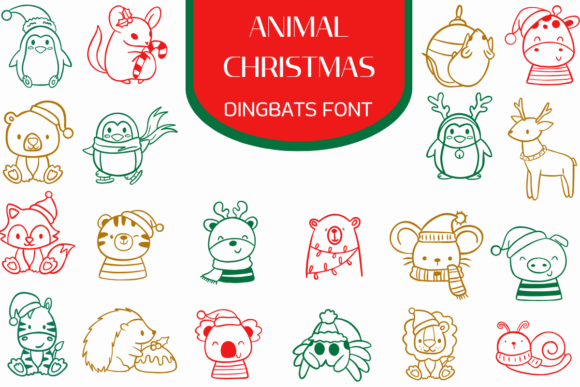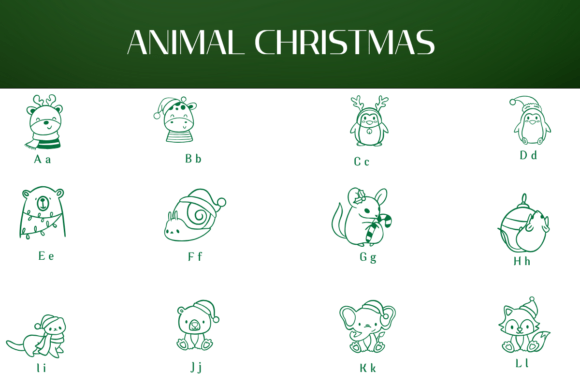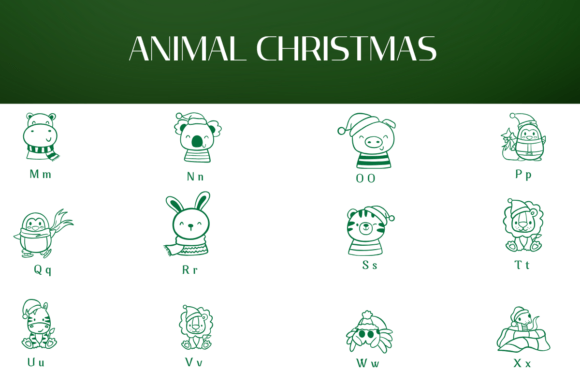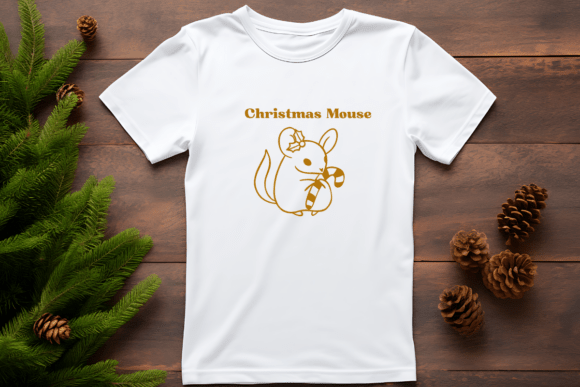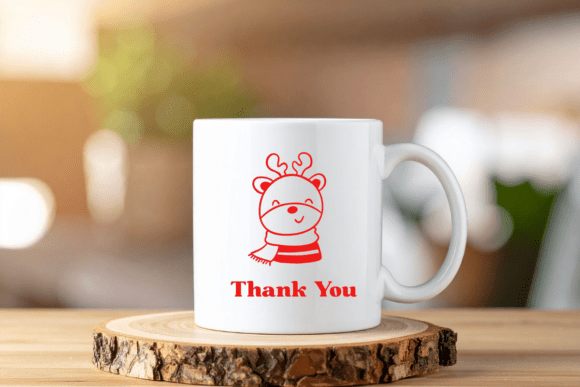
Animal Christmas Font
Bring the festive spirit to life with the Animal Christmas Dingbats Font – a whimsical collection of hand-drawn animal illustrations dressed in their holiday best!
This delightful dingbat font includes over 50 unique characters featuring cute animals like penguins, bears, deer, tigers, foxes, and more, all adorned with Christmas accessories such as Santa hats, scarves, and fairy lights.
Perfect for greeting cards, gift tags, holiday crafts, and festive branding, each glyph is crafted with a charming and cheerful style that kids and adults alike will love.
Just type a letter or number, and let the holiday cuteness shine through!